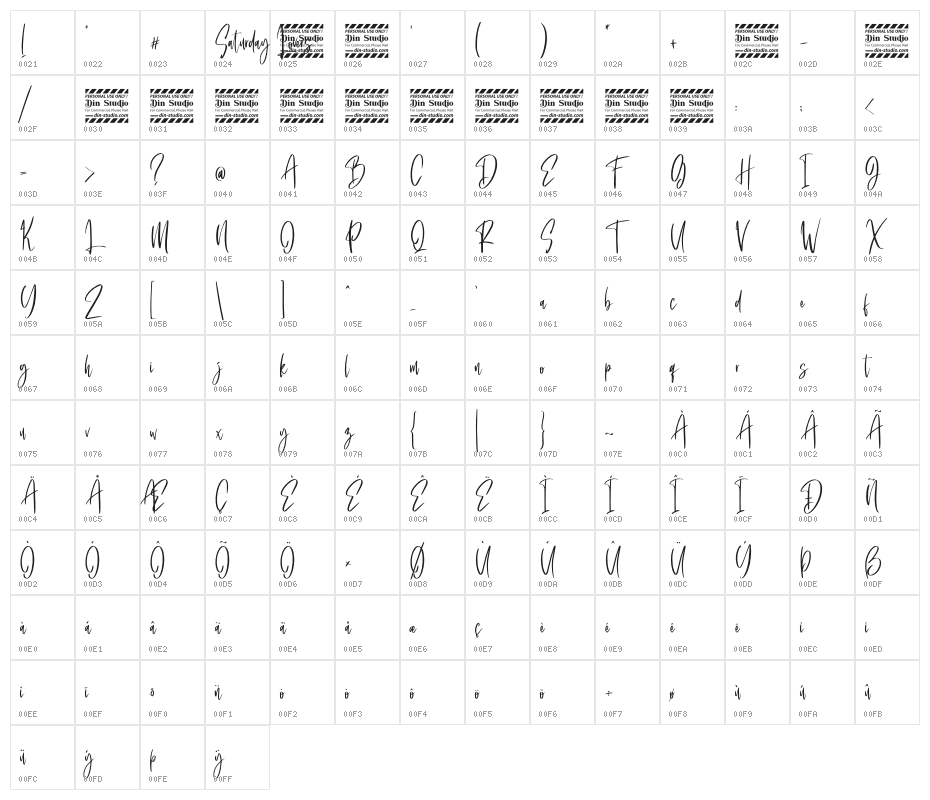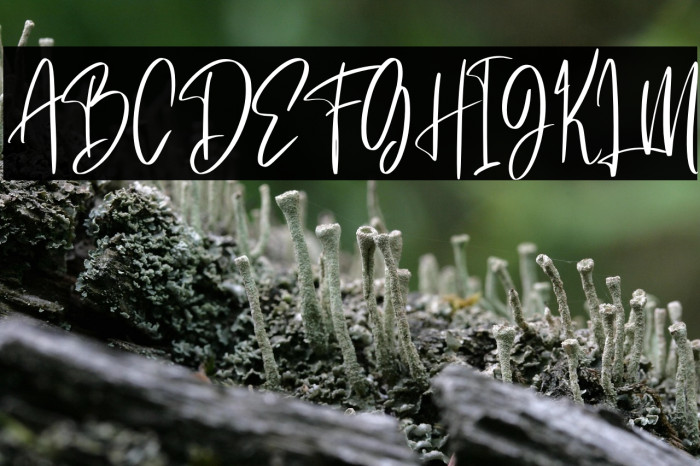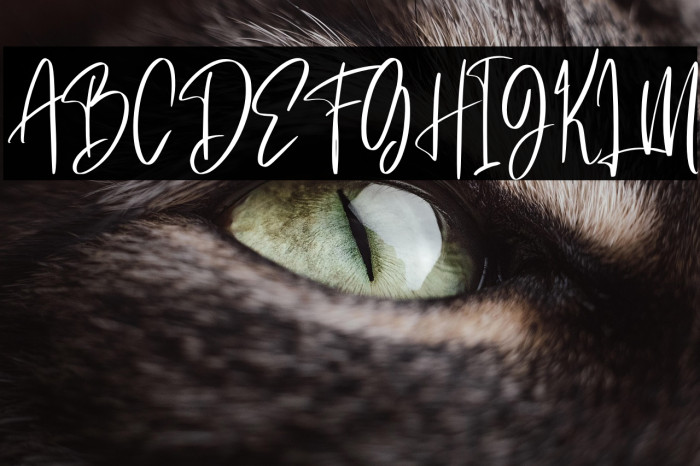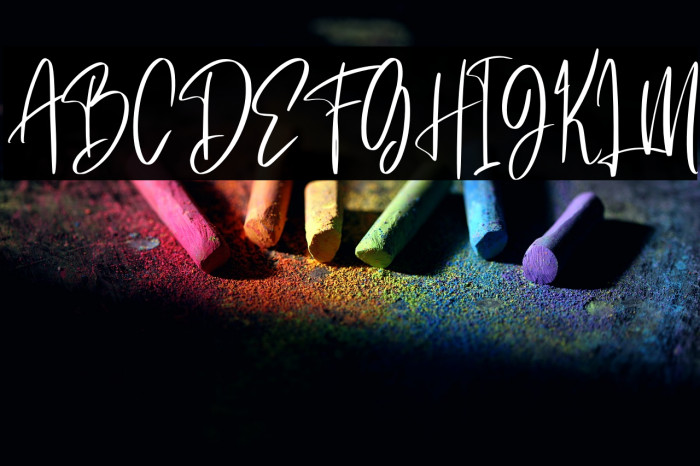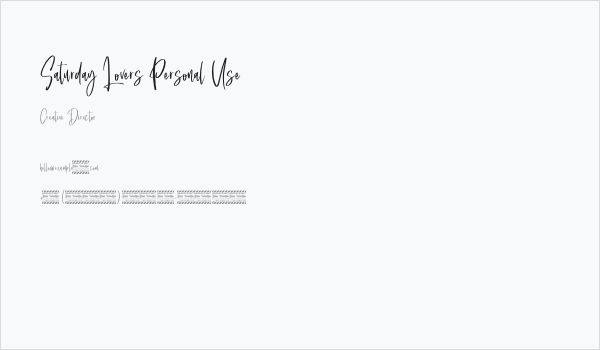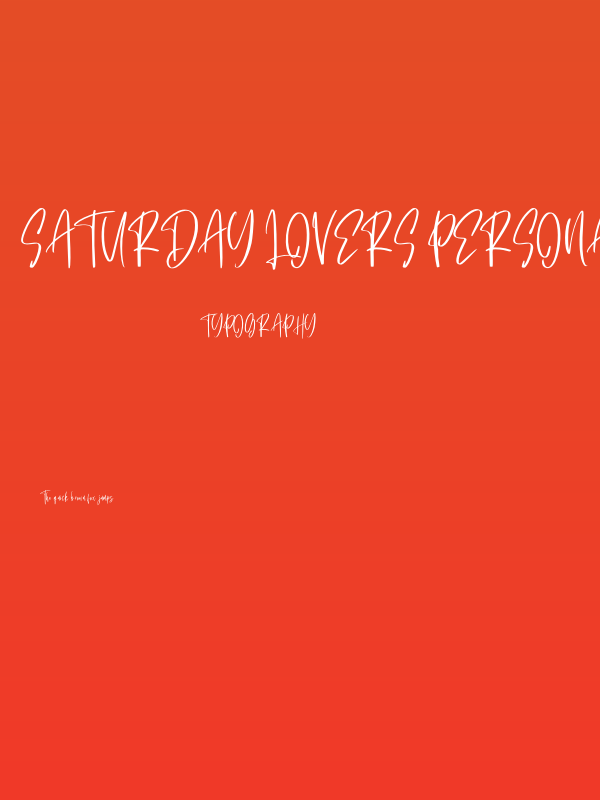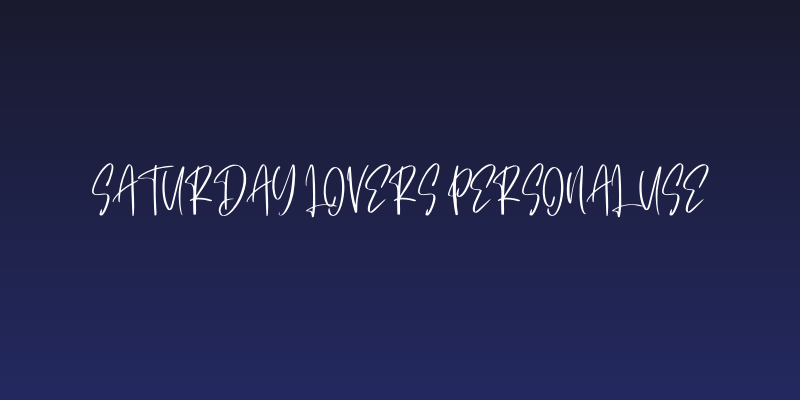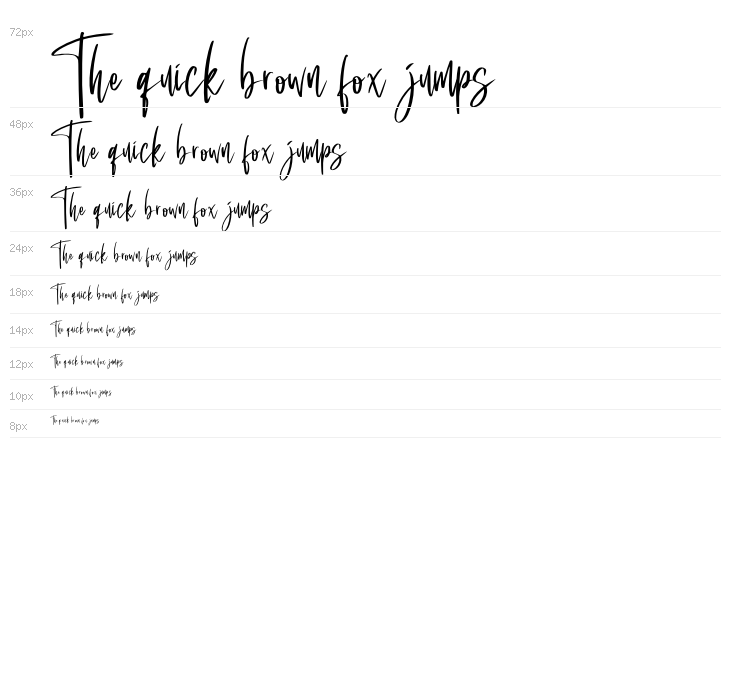
Saturday Lovers Personal Use Font
Saturday Lovers Personal Use Description
This font exhibits a lively and expressive handwritten style, characterized by its fluid and dynamic strokes. The uppercase letters are bold and slightly slanted, giving a sense of movement and energy. The lowercase letters maintain a consistent flow, with some letters featuring loops and curls that add to the playful nature of the font. The overall appearance is casual yet stylish, making it suitable for creative and informal projects. The numerals and special characters are designed to match the whimsical style, ensuring a cohesive look across all text elements.